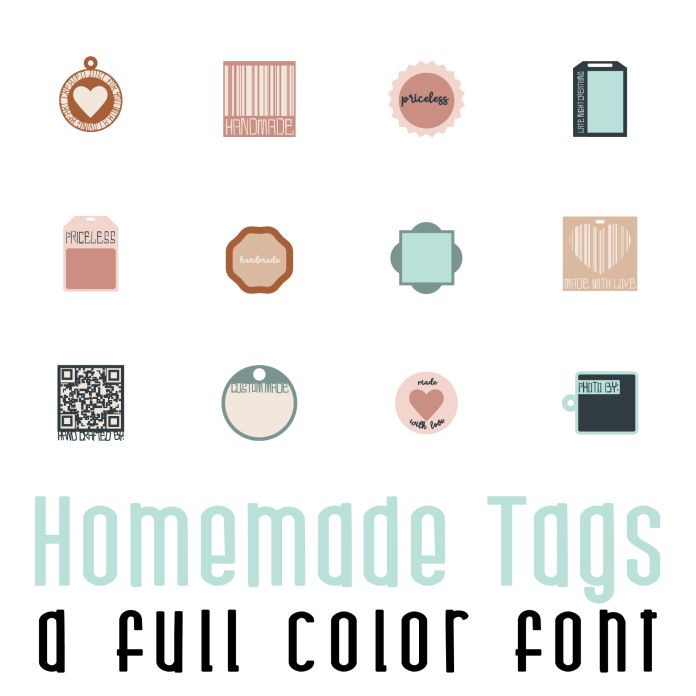
Homemade Tags Full Color Font
A full-color font stores svg data inside an Open Type font file. This font will look black if not used in a program like Silhouette Studio which is compatible. Images can be pulled apart with some vector programs like Illustrator and cut with your cutting machine. This fun full color font features 26 adorable tags and labels. Perfect for cards, crafts, gifts, planner stickers, scrap book pages, decor and more!